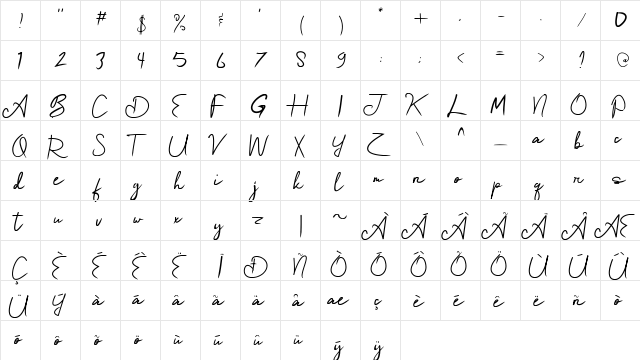
alfa delta Regular
| Foundry | sigit nurwicaksono |
Design Context for alfa delta Typeface
alfa delta is a composed and adaptable typeface that performs quietly and consistently across a wide range of design contexts.